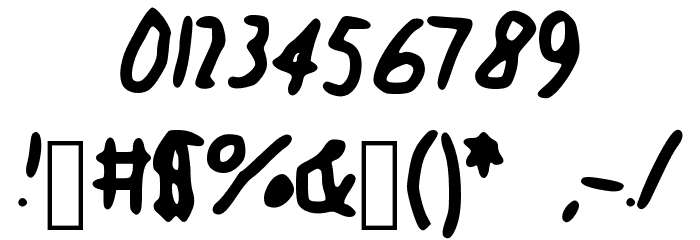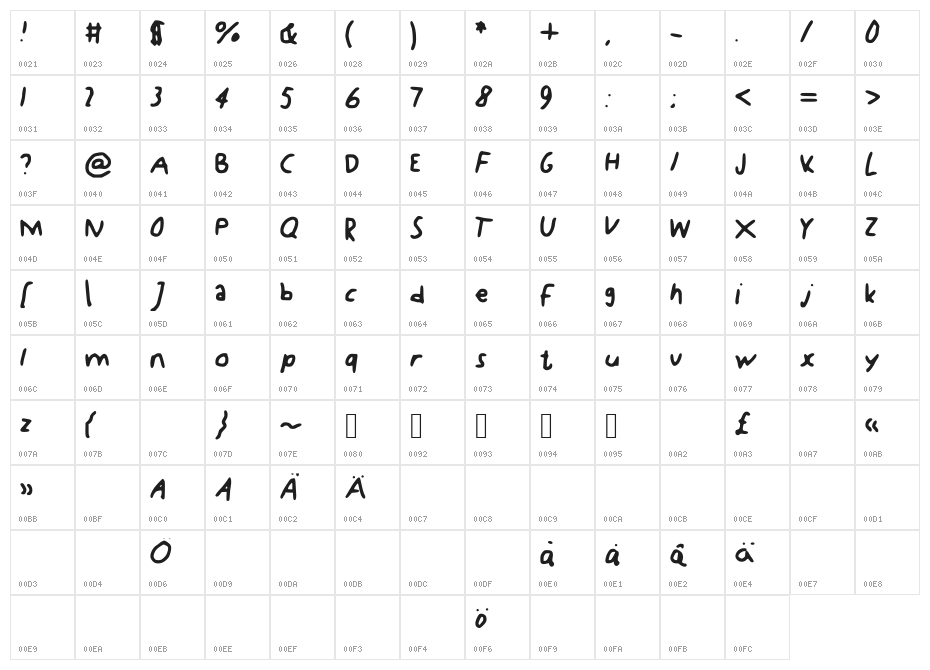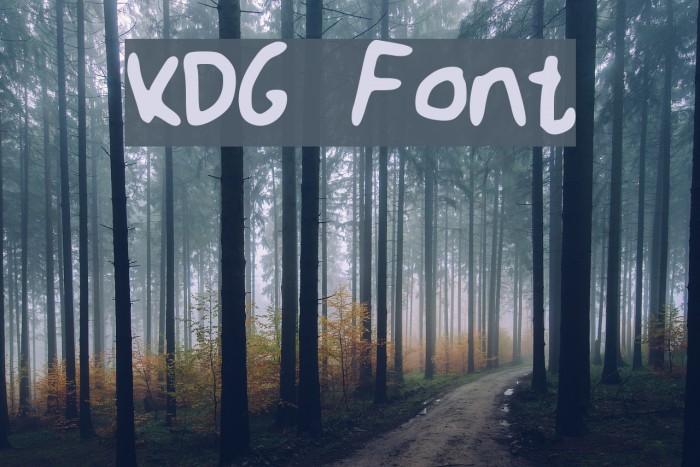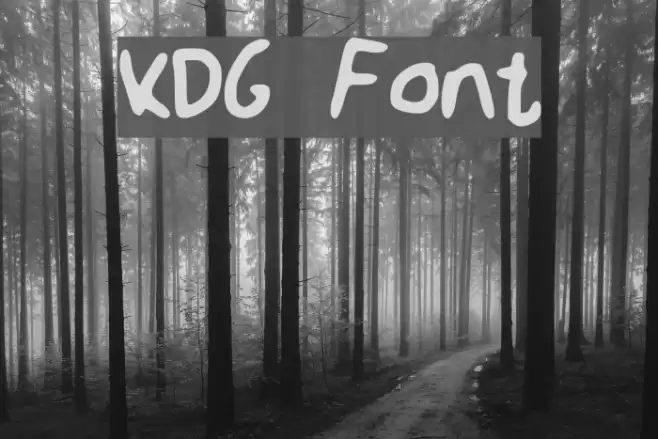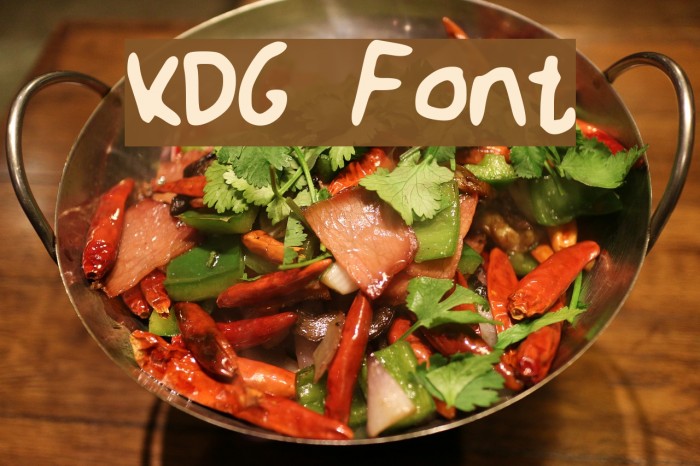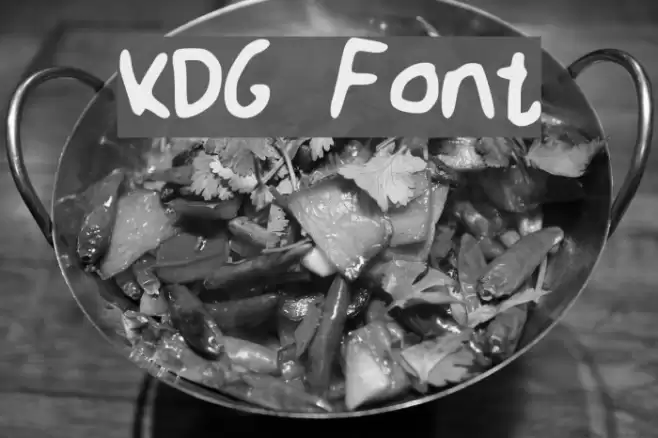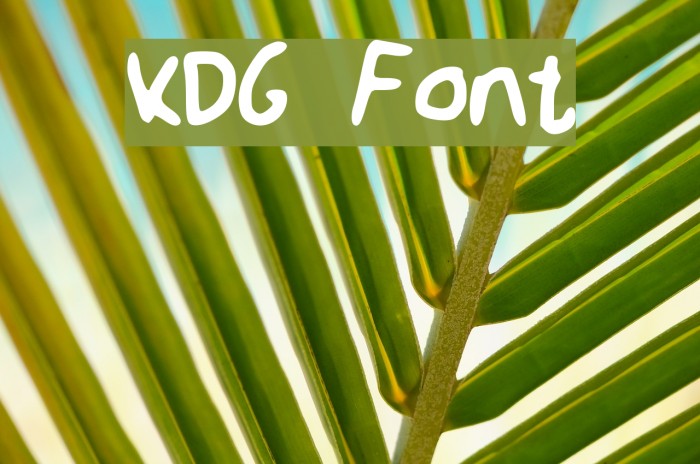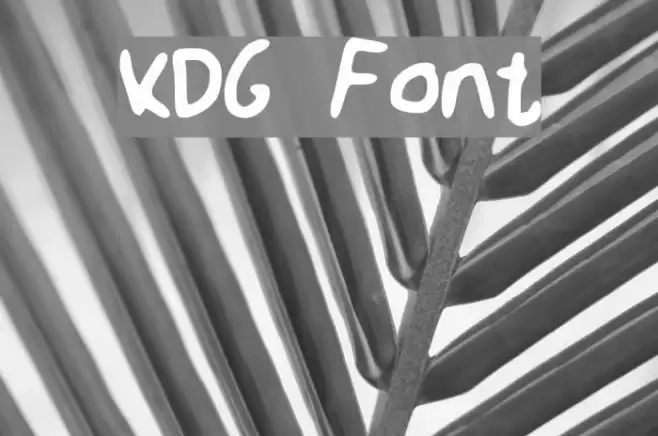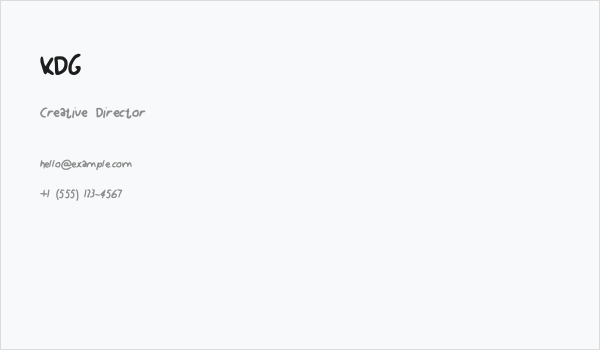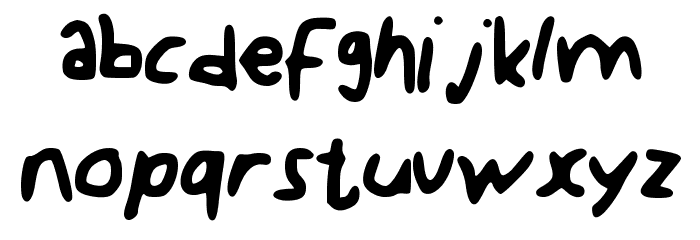
KDG Font
KDG Description
This font exhibits a playful and informal handwritten style, characterized by its bold and slightly irregular strokes. The letters have a casual, organic feel, with rounded edges and a consistent thickness throughout. The uppercase and lowercase letters maintain a cohesive look, while the numbers and special characters complement the overall design. This font's unique charm makes it suitable for projects that require a personal touch or a fun, approachable aesthetic.